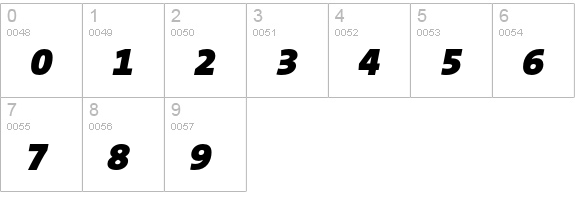
TheSans B9 Black Italic Font Details
TheSans B9 Black Italic is a maximum-weight, dramatic, italic variant in the TheSans typeface family \xE2\x80\x94 well suited to maximum-impact headlines, posters, and packaging.
TheSans B9 Black Italic font is a striking and bold typeface that exudes a powerful and impactful presence. With its sleek and slanted design, this font adds a touch of dynamism and elegance to any project. Designed with meticulous attention to detail, TheSans B9 Black Italic font is perfect for creating eye-catching headlines, captivating logos, and stylish branding materials. Its strong and confident appearance makes it ideal for conveying a sense of authority, making it an excellent choice for corporate presentations, advertising campaigns, and editorial designs. What sets TheSans B9 Black Italic font apart is not only its impressive visual appeal but also its versatility. From luxurious fashion magazines to modern tech websites, this font effortlessly adapts to various design styles and contexts. Its clean lines and smooth curves ensure legibility even at smaller sizes, making it suitable for both print and digital platforms. And the best part? TheSans B9 Black Italic font is freely available to download at FontsMarket.com. Whether you're a professional designer or a creative enthusiast exploring typographic possibilities, this font offers a world of possibilities at your fingertips. Its accessibility allows you to experiment and incorporate it into your projects without any limitations. So, if you're seeking a powerful and sophisticated typography solution that combines elegance with a touch of contemporary flair, look no further than TheSans B9 Black Italic font. Download it for free at FontsMarket.com and let your creativity soar to new heights.